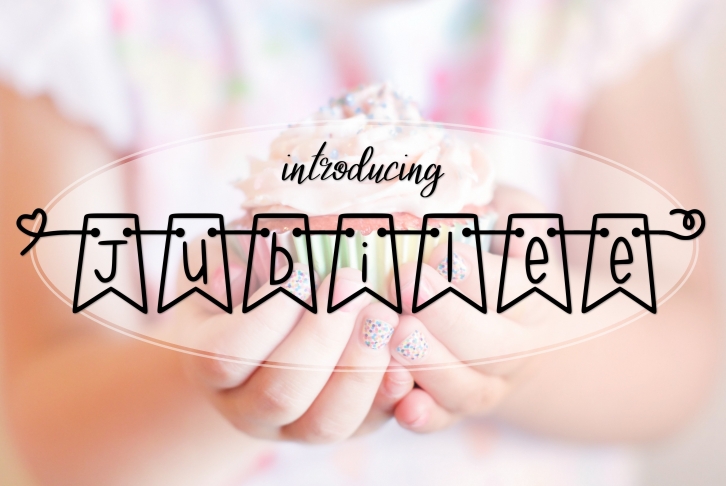
If you’re looking for a font that’s fun, funky, and unique, look no further than Jubilee. This hand-lettered font is perfect for your next project – whether it’s a birthday party invite, a baby shower announcement, or just because. The pendant-style letters add a touch of elegance, and the fun colors will brighten up any design. So go ahead and let your personality shine with Jubilee.